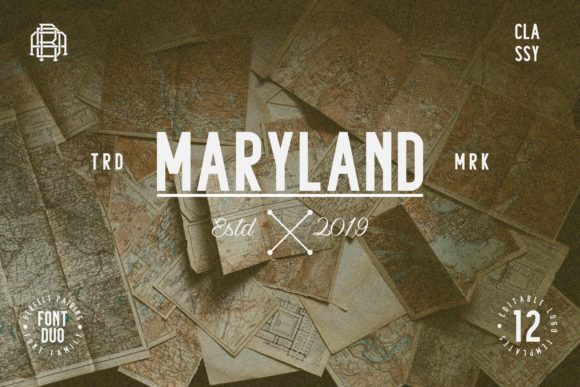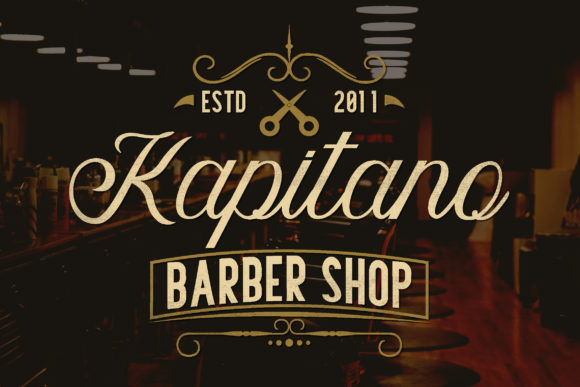
Introduction to Maryland Family Font
The Maryland is an amazing font family.
It includes a script and sans version which can be combined perfectly It’s perfect for logos, labels, packaging, headlines, and every other design which needs a classy, yet modern look.
Key Features of Maryland Family Font
Why Choose Maryland Family Font?
Maryland Family Font offers exceptional quality and versatility, making it a valuable addition to your design toolkit. Whether you’re creating for personal projects or commercial use, Maryland Family Font delivers professional results.